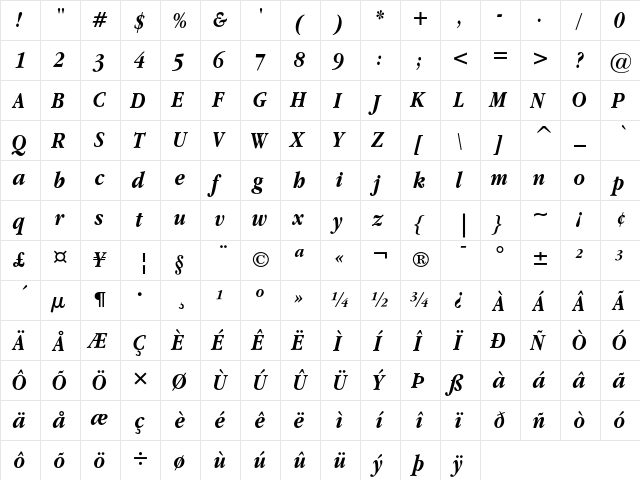
ITC Garamond Bold Narrow Italic Font Preview
Design Context for ITC Garamond Typeface
ITC Garamond offers clean, dependable letterforms without strong stylistic allegiance, making it a practical choice for designers who need flexibility. Its italic angle brings a sense of urgency and motion to the letterforms. The heavy weight commands attention and anchors typographic hierarchies. Its narrow stance lets it pack a punch even in space-constrained designs.
Pro Tip: Use ITC Garamond for emphasis, pull quotes, and subheadings where its slanted energy can add rhythm to the layout.